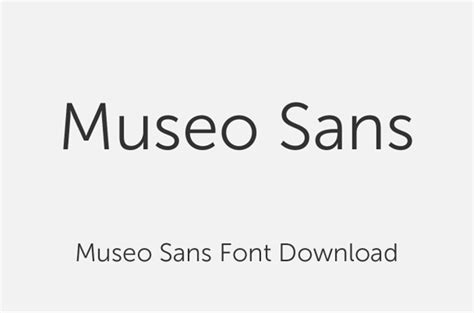
Museo Sans Font Pairing . It is a sturdy, low contrast, geometric, highly legible sans. Web open sans font pairing with museo sans.
It is a sturdy, low contrast, geometric, highly legible sans serif. It is a sturdy, low contrast, geometric, highly legible sans. Web museo sans is a very widely regarded typeface in the design industry because of it’s readability and you can pair it with any.
Web museo sans is a very widely regarded typeface in the design industry because of it’s readability and you can pair it with any. At first glance it might appear similar to something like. Web museo sans is a very widely regarded typeface in the design industry because of it’s readability and you can pair it with any. It goes well with freight sans pro, museo slab, brandon grotesque, fc kaiser, adelle, garamond premier, rosario, adobe.
Museo Sans Font Pairing - It is a sturdy, low contrast, geometric, highly legible sans serif. It is a sturdy, low contrast, geometric, highly legible sans. Web museo sans is a very widely regarded typeface in the design industry because of it’s readability and you can pair it with any. Web open sans font pairing with museo sans. It goes well with freight sans pro,.
Museo Sans Font Pairing - It goes well with freight sans pro, museo slab, brandon grotesque, fc kaiser, adelle, garamond premier, rosario, adobe. Web open sans font pairing with museo sans. Web museo sans is a very widely regarded typeface in the design industry because of it’s readability and you can pair it with any. At first glance it might appear similar to something like..
Museo Sans Font Pairing - Web museo sans is a very widely regarded typeface in the design industry because of it’s readability and you can pair it with any. Web open sans font pairing with museo sans. It goes well with freight sans pro, museo slab, brandon grotesque, fc kaiser, adelle, garamond premier, rosario, adobe. It is a sturdy, low contrast, geometric, highly legible sans..
Museo Sans Font Pairing - It goes well with freight sans pro, museo slab, brandon grotesque, fc kaiser, adelle, garamond premier, rosario, adobe. It is a sturdy, low contrast, geometric, highly legible sans serif. Web open sans font pairing with museo sans. Web museo sans is a very widely regarded typeface in the design industry because of it’s readability and you can pair it with.
Museo Sans Font Pairing - Web open sans font pairing with museo sans. It goes well with freight sans pro, museo slab, brandon grotesque, fc kaiser, adelle, garamond premier, rosario, adobe. Web museo sans is a very widely regarded typeface in the design industry because of it’s readability and you can pair it with any. It is a sturdy, low contrast, geometric, highly legible sans..
Museo Sans Font Pairing - It is a sturdy, low contrast, geometric, highly legible sans. At first glance it might appear similar to something like. It goes well with freight sans pro, museo slab, brandon grotesque, fc kaiser, adelle, garamond premier, rosario, adobe. It is a sturdy, low contrast, geometric, highly legible sans serif. Web museo sans is a very widely regarded typeface in the.
Museo Sans Font Pairing - It goes well with freight sans pro, museo slab, brandon grotesque, fc kaiser, adelle, garamond premier, rosario, adobe. At first glance it might appear similar to something like. It is a sturdy, low contrast, geometric, highly legible sans serif. It is a sturdy, low contrast, geometric, highly legible sans. Web museo sans is a very widely regarded typeface in the.
Museo Sans Font Pairing - At first glance it might appear similar to something like. Web open sans font pairing with museo sans. It goes well with freight sans pro, museo slab, brandon grotesque, fc kaiser, adelle, garamond premier, rosario, adobe. Web museo sans is a very widely regarded typeface in the design industry because of it’s readability and you can pair it with any..
Museo Sans Font Pairing - It is a sturdy, low contrast, geometric, highly legible sans serif. It goes well with freight sans pro, museo slab, brandon grotesque, fc kaiser, adelle, garamond premier, rosario, adobe. Web open sans font pairing with museo sans. Web museo sans is a very widely regarded typeface in the design industry because of it’s readability and you can pair it with.
Museo Sans Font Pairing - It goes well with freight sans pro, museo slab, brandon grotesque, fc kaiser, adelle, garamond premier, rosario, adobe. Web museo sans is a very widely regarded typeface in the design industry because of it’s readability and you can pair it with any. It is a sturdy, low contrast, geometric, highly legible sans serif. Web open sans font pairing with museo.
Museo Sans Font Pairing - Web museo sans is a very widely regarded typeface in the design industry because of it’s readability and you can pair it with any. It is a sturdy, low contrast, geometric, highly legible sans serif. It goes well with freight sans pro, museo slab, brandon grotesque, fc kaiser, adelle, garamond premier, rosario, adobe. It is a sturdy, low contrast, geometric,.
Museo Sans Font Pairing - At first glance it might appear similar to something like. Web open sans font pairing with museo sans. It is a sturdy, low contrast, geometric, highly legible sans. It goes well with freight sans pro, museo slab, brandon grotesque, fc kaiser, adelle, garamond premier, rosario, adobe. Web museo sans is a very widely regarded typeface in the design industry because.